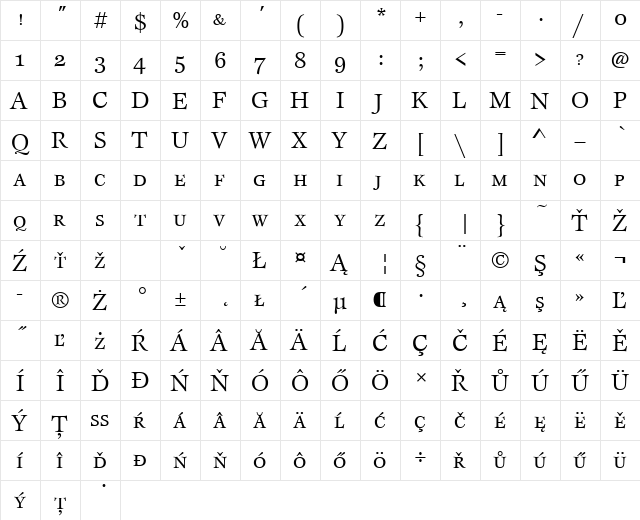
EspritSCItcTEEBoo Regular Font Preview
EspritSCItcTEEBoo Regular
Design Context for EspritSCItcTEEBoo Typeface
EspritSCItcTEEBoo offers clean, dependable letterforms without strong stylistic allegiance, making it a practical choice for designers who need flexibility.